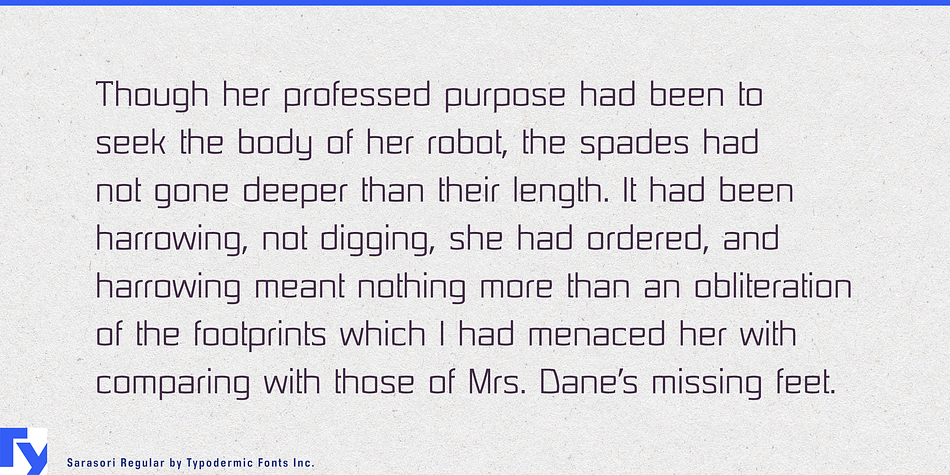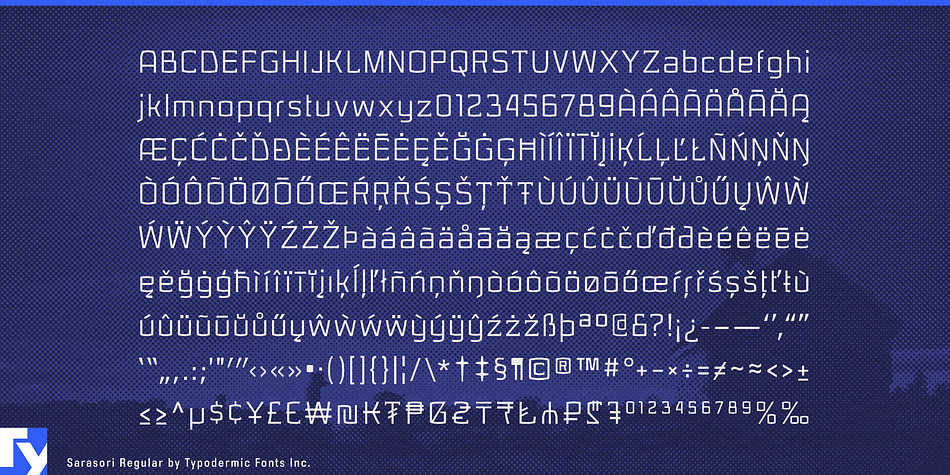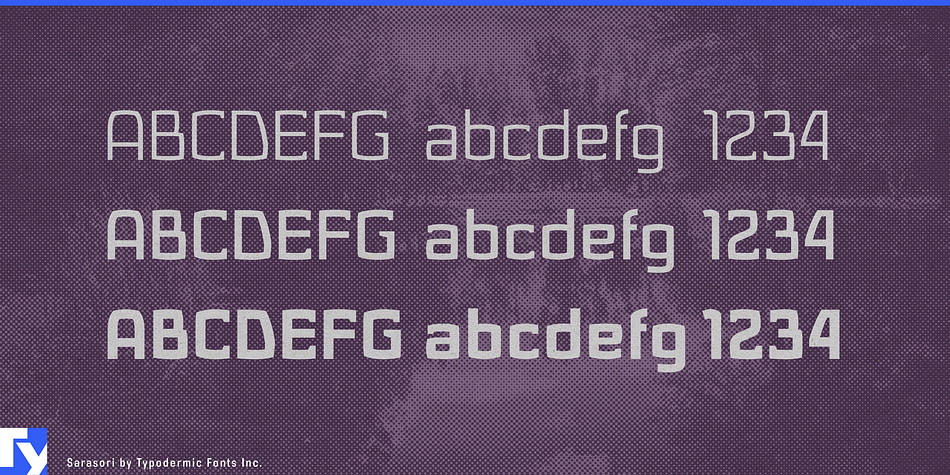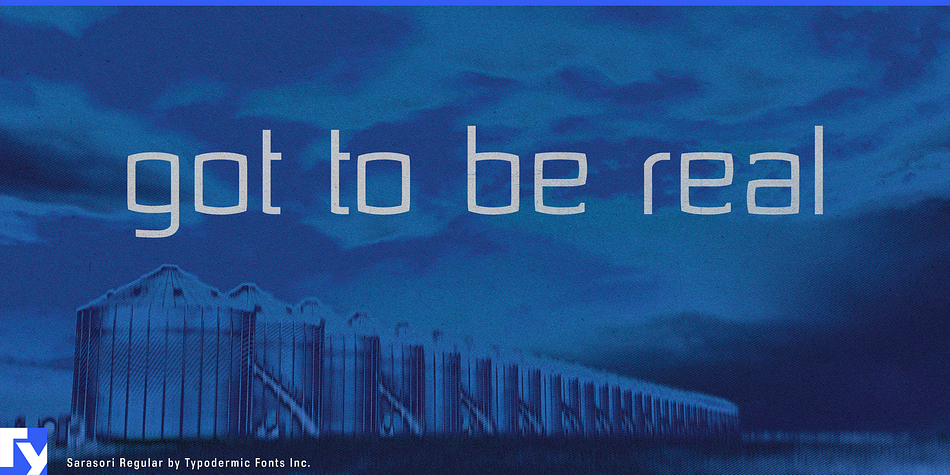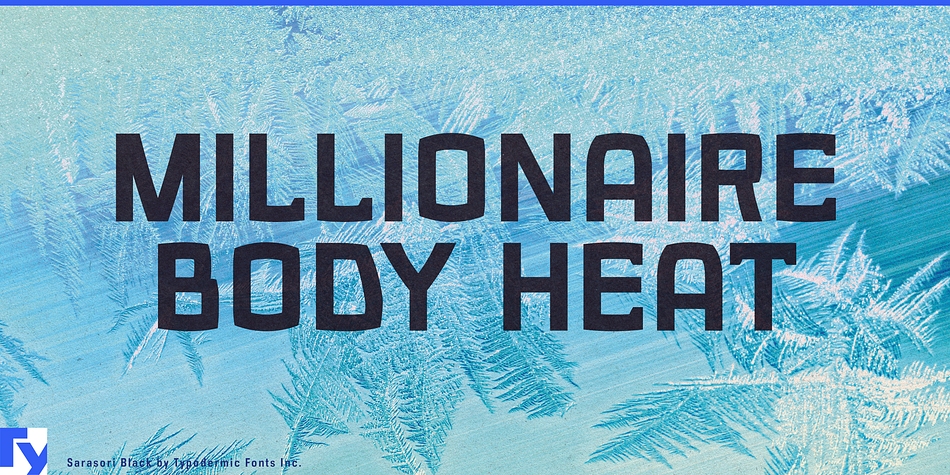
Sarasori is a display sans font family. This typeface has three styles and was published by Typodermic Fonts Inc.
Sarasori is a high tech, boxoidal display font. Sarasori is ideal for scientific, science fiction or high technology themes.